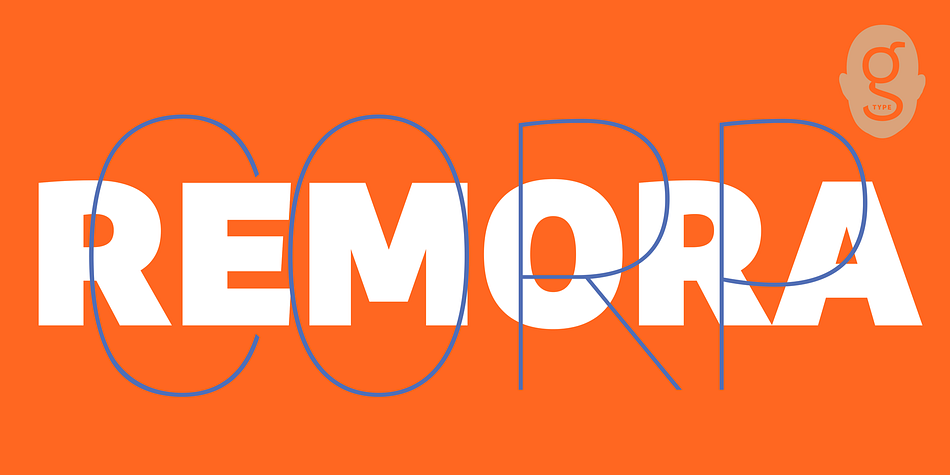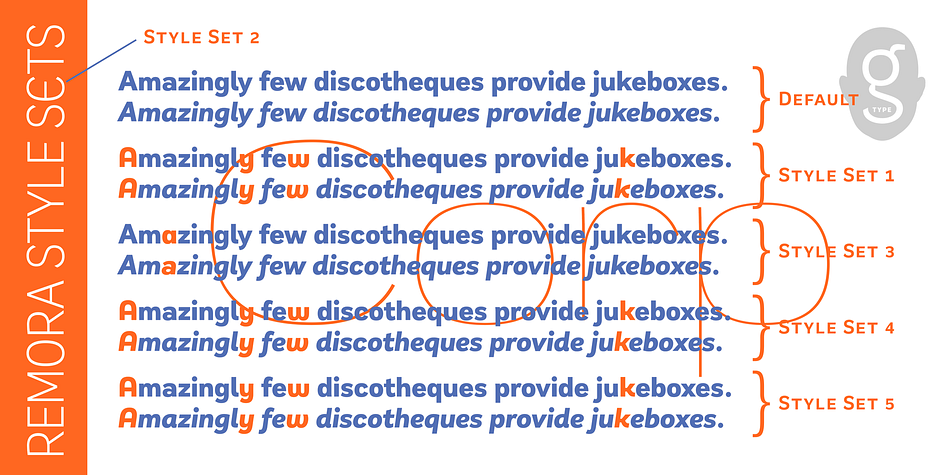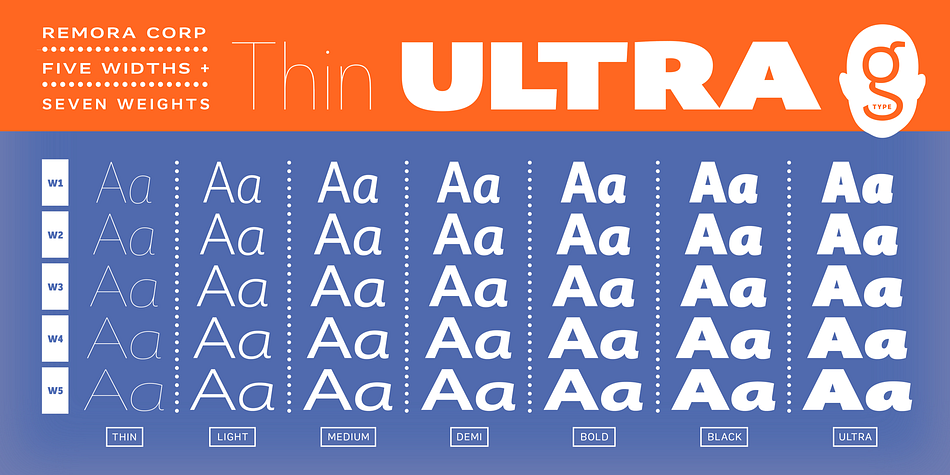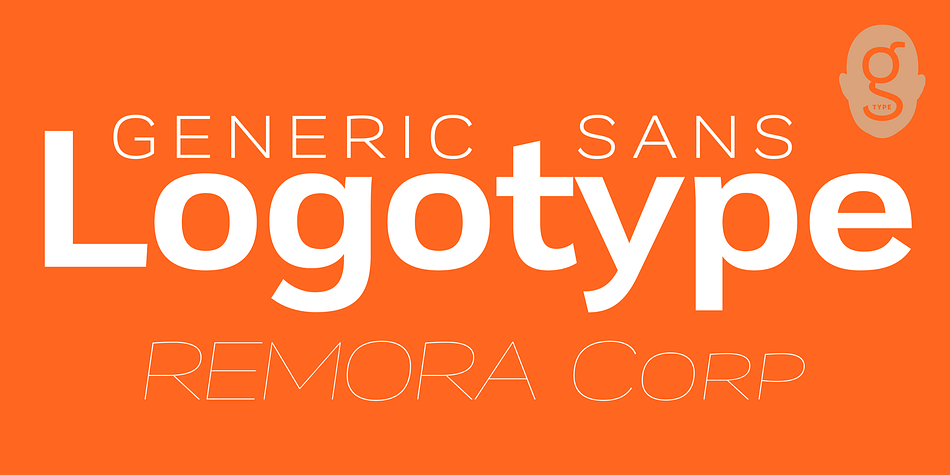
Designed by Nick Cooke, Remora Corp W2 is a sans serif font family. This typeface has fourteen styles and was published by G-Type.
Remora Corp is an ultra versatile sans serif type family, the more straight laced sister to Remora Sans and perfect for corporate communication.
Each Remora set comes in 5 different width options ranging from the condensed W1 to the expanded W5, each boasting 7 weights plus true italics.
Remora Corp W1’s condensed letterforms are tailor made for flexible copy fitting and working within space restrictions without sacrificing design excellence.